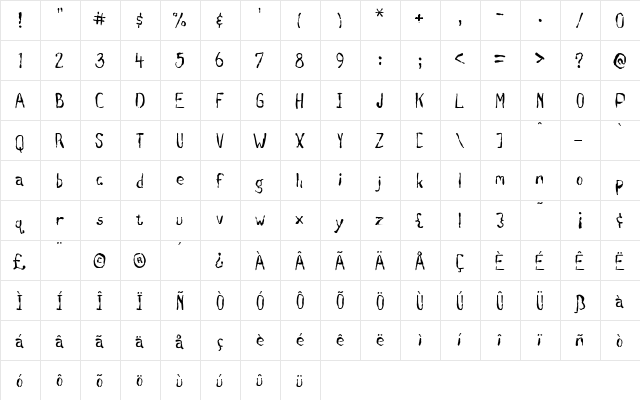
Smock Medium
Design Context for Smock Typeface
Smock is a composed and adaptable typeface that performs quietly and consistently across a wide range of design contexts.
Pro Tip: Pair Smock with a font of contrasting weight or personality to build a more expressive typographic hierarchy.